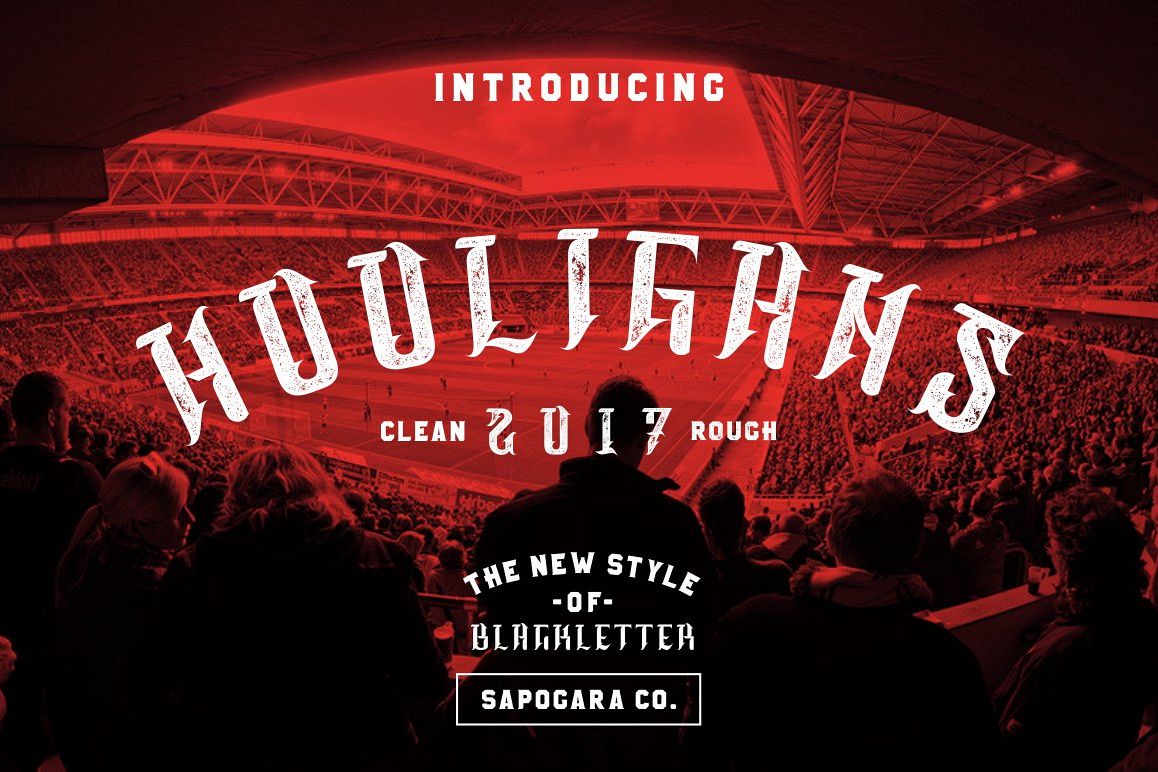
HOOLIGANS
Hooligans Typeface includes two aspects, informative and expressive aspects. Typeface is set using capital letters or uppercase. The selection of bold and heavy font structures is a powerful, straightforward, informative, inspirational, and independent visual expression.
Typeface is suitable typeface for various purposes like logotype, signage, label, poster, dropcap, titles, letterhead, book cover and etc.